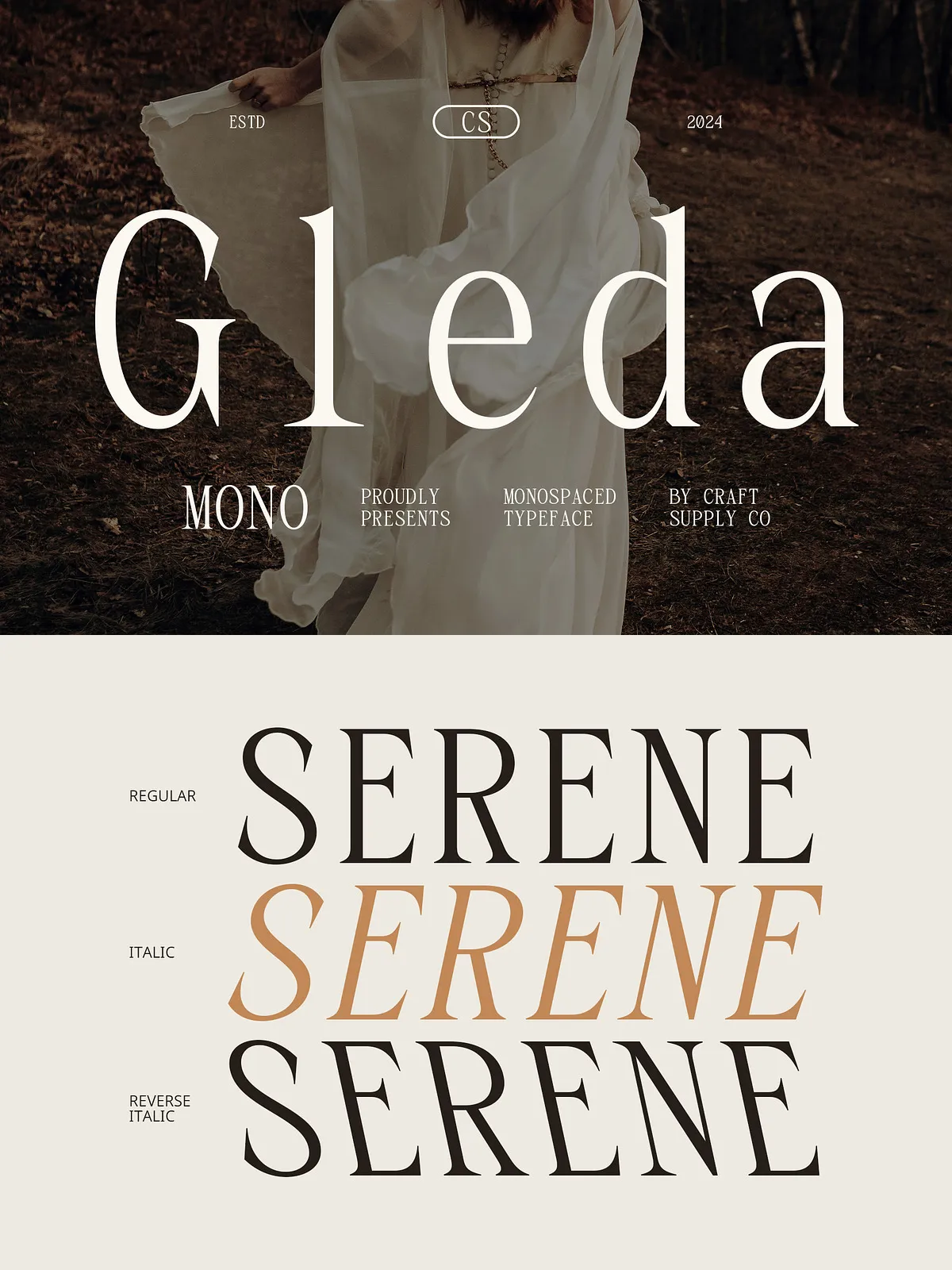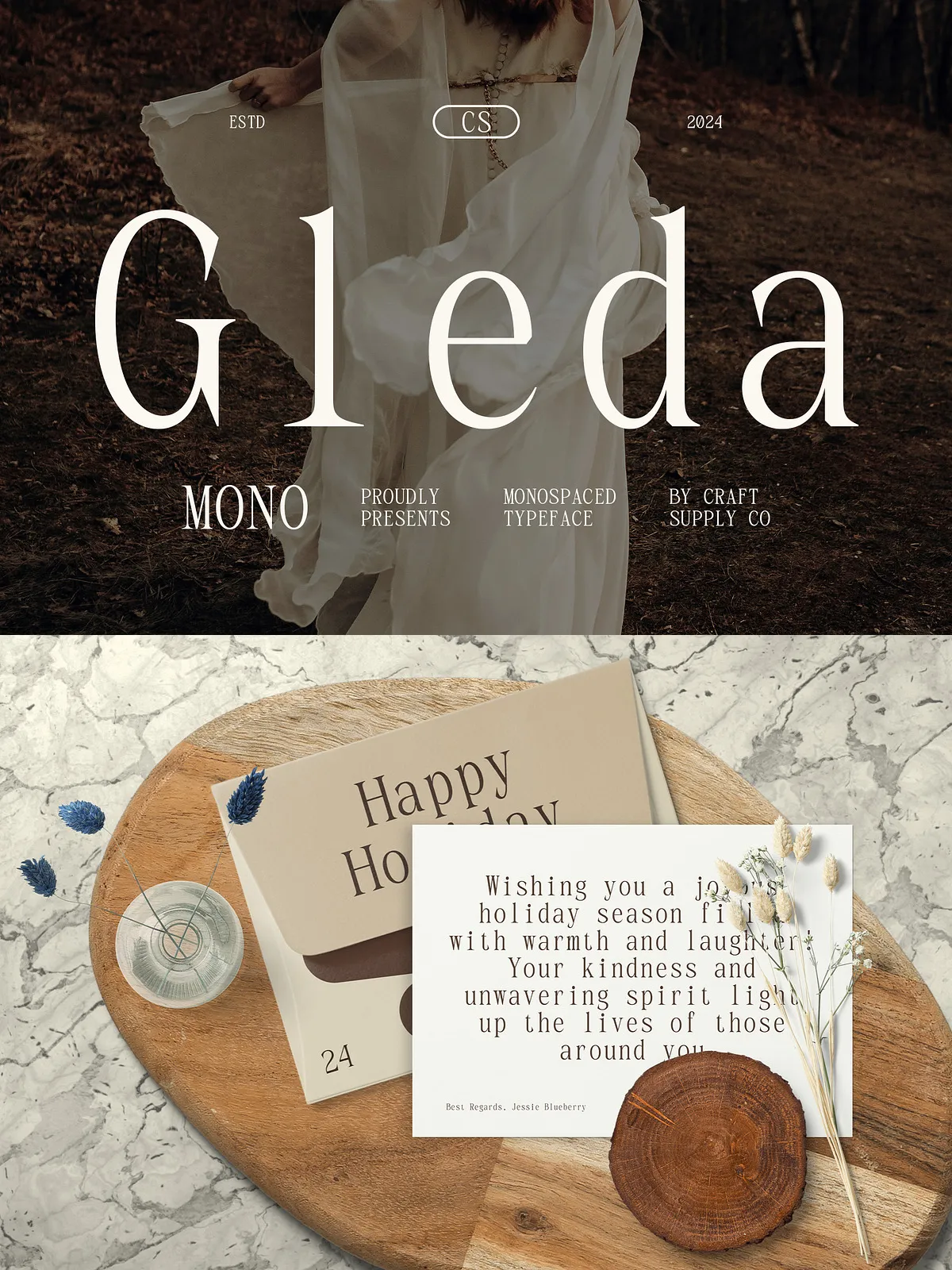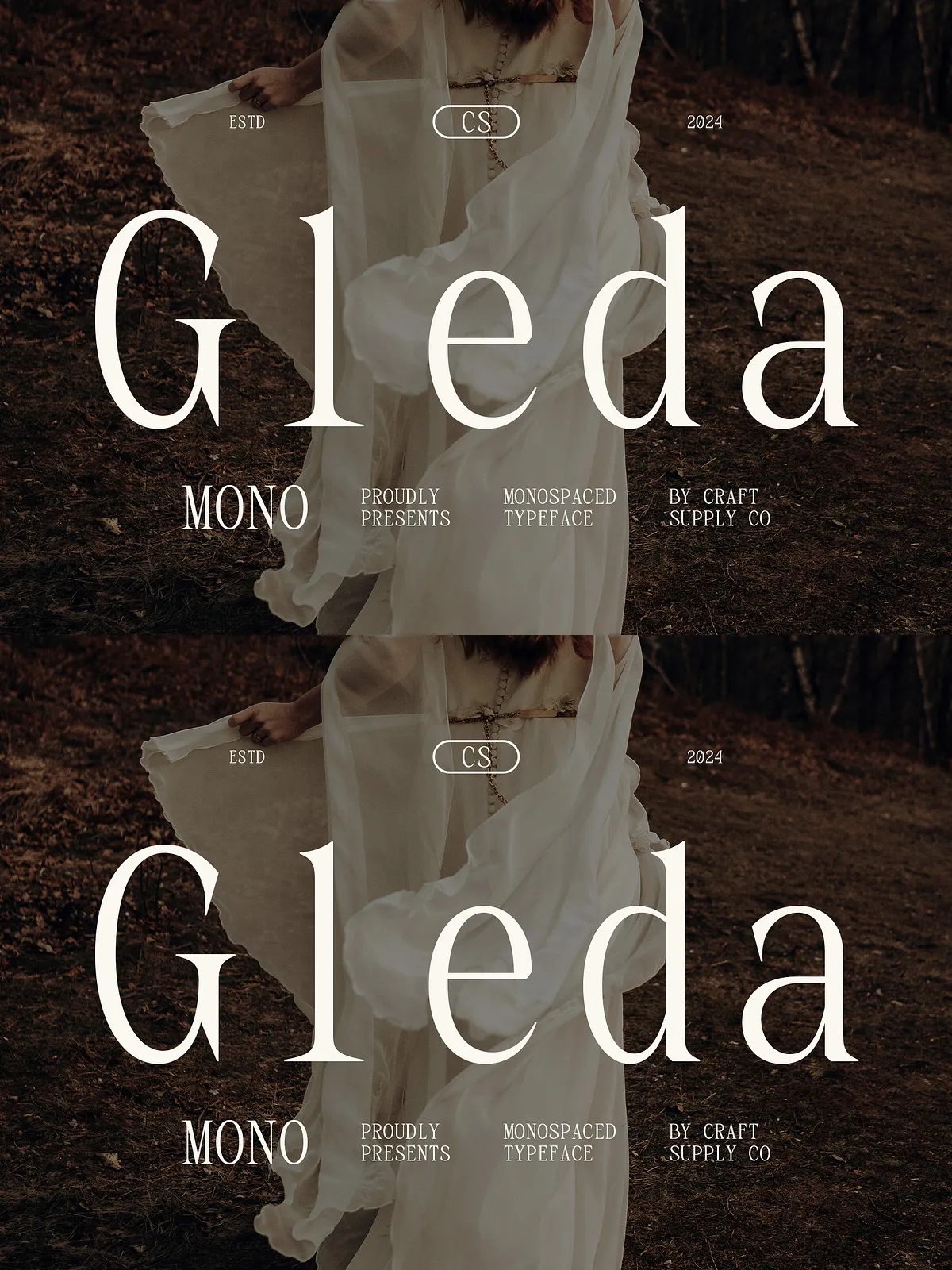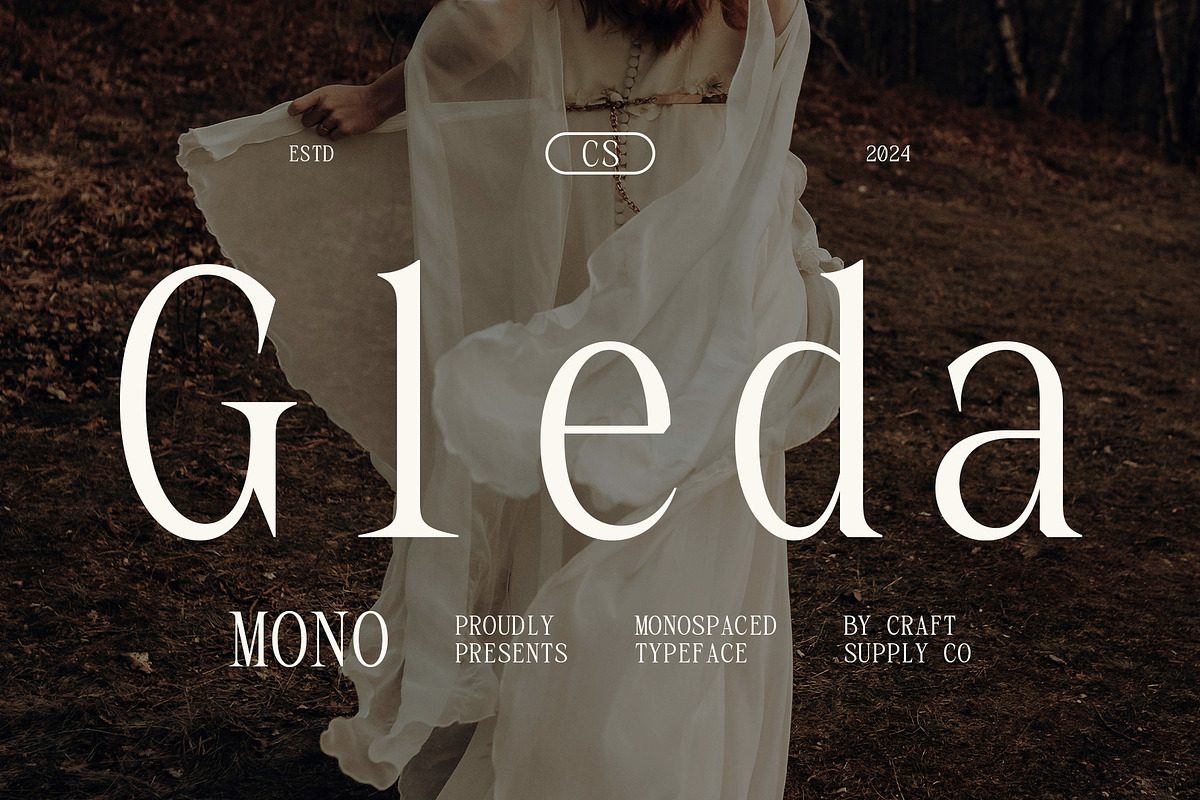
Meet CS Gleda Mono, a daring fusion of classic serif craftsmanship and modern urban sensibility. Designed for creators who demand precision without sacrificing beauty, this monospaced serif typeface redefines what a technical font can be. Every character occupies the same width, ensuring flawless alignment across spreads, code blocks, and headlines—yet its refined stroke contrast, elegant curves, and balanced proportion deliver a luxurious visual rhythm. Whether you’re coding in a terminal or crafting a minimalist brand manifesto, CS Gleda Mono brings structure and soul to every word.
Why CS Gleda Mono Stands Out
1. Precision Engineering with Aesthetic Mastery
Unlike many monospaced fonts that lean toward technical austerity, CS Gleda Mono introduces subtle organic flourishes and thoughtful spacing. Its stem and serif transitions are carefully calibrated to improve readability at small sizes while preserving visual character at display scale. The result? A font that reads like poetry in a debugger—intelligent, expressive, and utterly professional.
2. Full-Range Multilingual Support
Designed with global creators in mind, CS Gleda Mono includes complete support for multilingual typography. It features uppercase and lowercase Latin letters, accented characters (à, ç, ñ, ö, etc.), extended European diacritics, and full punctuation. The font is PUA-encoded for consistent glyph access across platforms, making it ideal for international documentation, academic writing, and multilingual branding.
3. Rich OpenType Features for Power Users
Harness the full potential of advanced typographic control with built-in OpenType features:
- Standard ligatures for improved flow and style
- Contextual alternates to prevent visual monotony in long blocks
- Small caps, old-style figures, and discretionary ligatures for editorial refinement
- Proper kerning pairs for optimal spacing between common letter combinations
These features empower designers to achieve typographic excellence across every project.
Perfect Applications for CS Gleda Mono
CS Gleda Mono thrives wherever clarity meets character. Use it for:
- Technical Documentation – Code snippets, API references, and software manuals gain visual coherence and elevated professionalism.
- Programming & Terminal Design – Clear symbol distinction and consistent width reduce eye strain during extended sessions.
- Brand Identity & Logos – The bold serif structure adds heritage and authority to tech startups and creative agencies.
- Editorial Layouts – Feature quotes, pull quotes, and chapter headings benefit from the balanced stroke weight and modern elegance.
- Typography in Print & Web – Ideal for magazine spreads, landing pages, and presentations requiring a touch of sophistication and discipline.
Font Family Includes
CS Gleda Mono ships with four carefully crafted styles:
- CS Gleda Mono Regular – The foundation of the family; ideal for body copy and standard technical use.
- CS Gleda Mono Italic – Adds emphasis with graceful slant and subtle flair for commentary or quotes.
- CS Gleda Mono Reverse Italic – A unique, stylistic alternate for editorial flair and digital branding moments.
Design Tips for Maximum Impact
- Pair CS Gleda Mono with clean sans-serif faces (like Inter or Lato) for body copy to enhance readability in long formats.
- Use the Reverse Italic for standout headlines or interactive elements to draw immediate attention.
- In UI design, set a slightly increased letter-spacing for display sizes to avoid visual density.
- When using it in code environments, enable ligatures to reduce visual clutter and improve parsing speed.